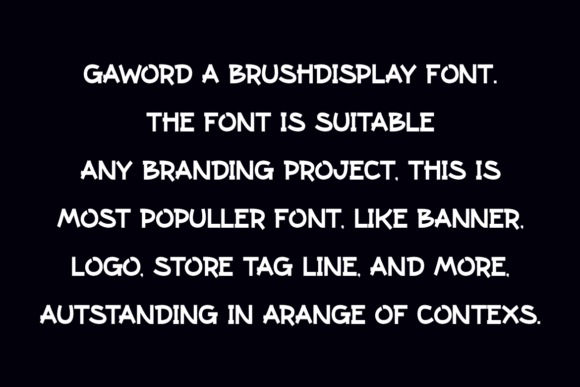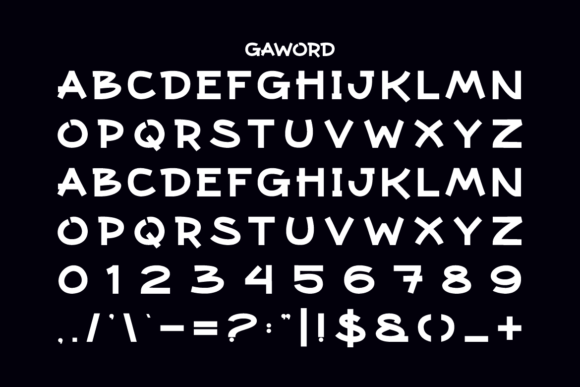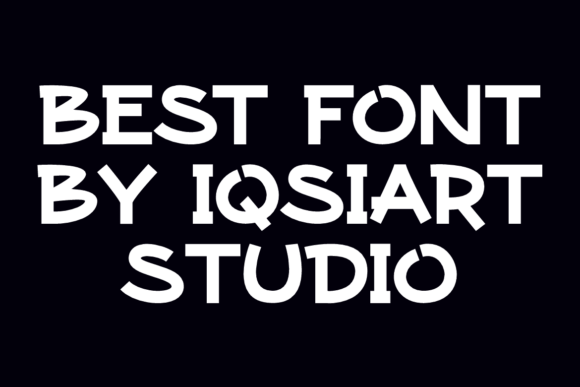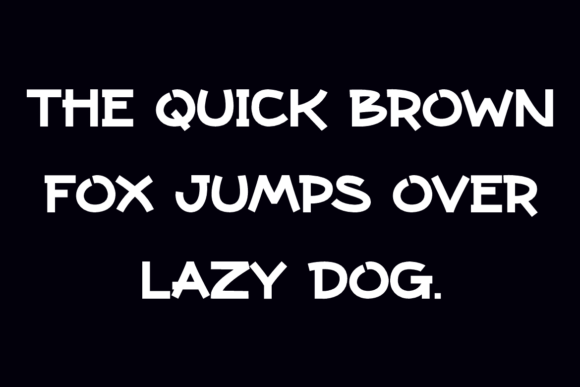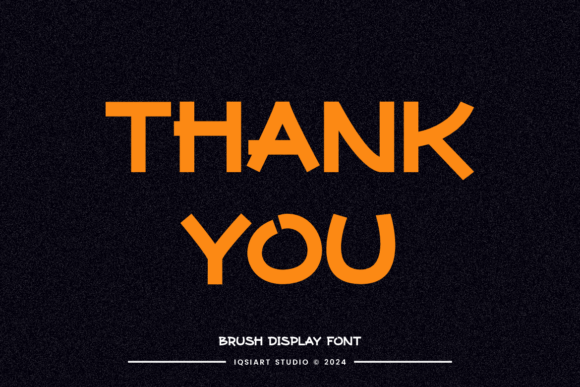
Gaword Font: Elevate Your Designs with Bold and Stylish Brush Marker Style
Are you tired of using the same old fonts in your designs? Look no further than Gaword Font, a bold and stylish brush marker display font that’s sure to make a statement. With its thick, smooth strokes that mimic hand-painted lettering, Gaword Font gives your designs a fun and creative feel that’s perfect for headlines, posters, and any project that needs a bit of artistic flair.
The Characteristics of Gaword Font
Gaword Font is a unique and eye-catching font that’s designed to add a touch of personality to your designs. Its key characteristics include:
- Bold and Stylish: Gaword Font features thick, confident strokes that are perfect for making a statement in your designs.
- Brush Marker Style: The font’s brush marker style gives it a fun and creative feel that’s reminiscent of hand-painted lettering.
- Smooth Strokes: The font’s smooth strokes make it easy to read and give it a professional finish.
Uses for Gaword Font
Gaword Font is a versatile font that can be used in a variety of design projects, including:
- Headlines: Use Gaword Font to create bold and eye-catching headlines that grab attention.
- Posters: Add a touch of artistic flair to your posters with Gaword Font’s unique and stylish brush marker style.
- Logos: Use Gaword Font to create a bold and memorable logo that sets your brand apart.
- Social Media Graphics: Add some personality to your social media graphics with Gaword Font’s fun and creative style.
Why Choose Gaword Font?
There are many fonts available that offer a similar style to Gaword Font, but here are a few reasons why Gaword Font stands out:
- Unique Style: Gaword Font’s brush marker style is unique and eye-catching, making it perfect for designers who want to add some personality to their designs.
- High-Quality: The font is designed to be high-quality and easy to read, making it perfect for use in a variety of design projects.
- Versatile: Gaword Font can be used in a variety of design projects, from headlines and posters to logos and social media graphics.
Tips for Using Gaword Font
Here are a few tips for getting the most out of Gaword Font:
- Use it Sparingly: Gaword Font is a bold and eye-catching font, so use it sparingly to avoid overwhelming your design.
- Pair it with a Simple Font: Pair Gaword Font with a simple font to create contrast and make your design more visually appealing.
- Experiment with Colors: Gaword Font looks great in a variety of colors, so don’t be afraid to experiment and find the perfect color for your design.
Gaword Font is a bold and stylish brush marker display font that’s perfect for designers who want to add some personality to their designs. With its thick, smooth strokes and fun and creative feel, Gaword Font is sure to make a statement in any design project. Whether you’re creating headlines, posters, logos, or social media graphics, Gaword Font is a versatile and high-quality font that’s sure to elevate your designs.